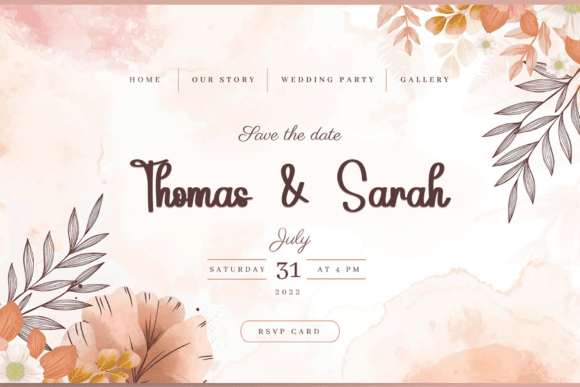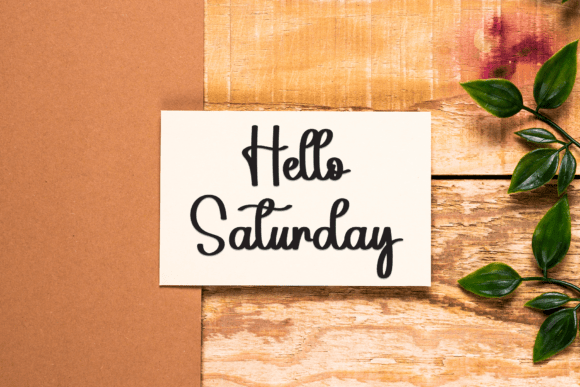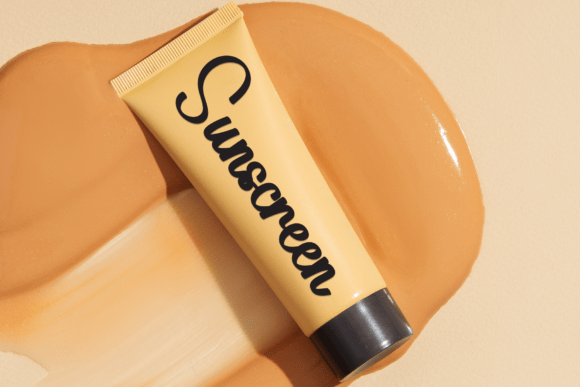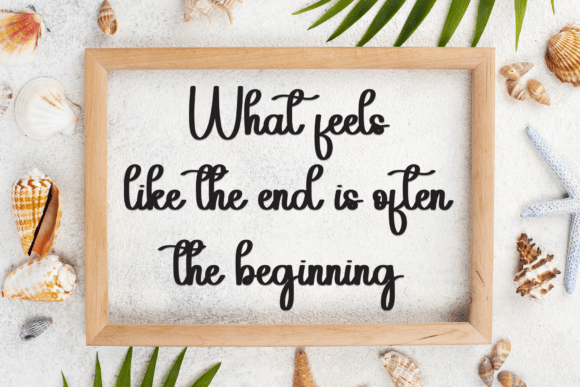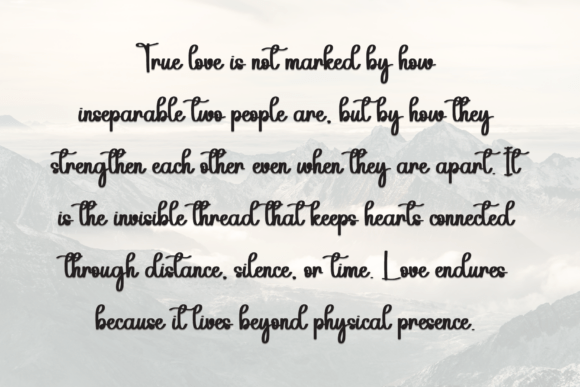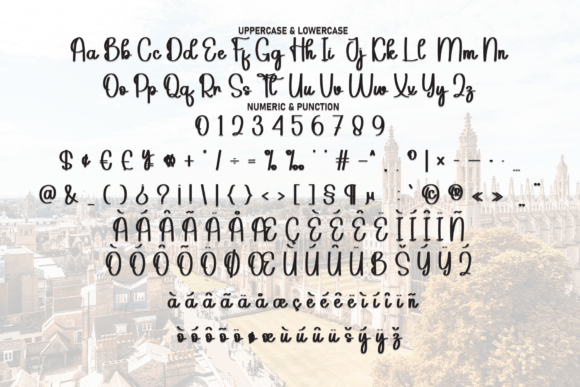
Discover the Timeless Elegance of Cambridge Font
There’s nothing quite like the thrill of watching a design come to life, and for many of us, that moment is when the perfect font is finally selected. It’s the icing on the cake, the cherry on top, or in this case, the flourish on a beautifully crafted invitation. For designers seeking to add a touch of sophistication and whimsy to their creations, we’re excited to introduce the Cambridge Font – a charming hand-scripted typeface that exudes warmth and inviting charm.
With its endearing sweetness and unmatched hospitality, the Cambridge Font is the ideal companion for any creative pursuit. Whether you’re crafting bespoke wedding invitations or designing customized cards, this font is the perfect addition to bring a harmonious highlight to your designs.
Cambridge Font Key Features
- Unique Characteristics: The Cambridge Font features a classic, elegant design with subtle flair and a sense of sophistication, making it ideal for academic, professional, and creative projects.
- Font Style: The font is available in both regular and italic styles, providing versatility and flexibility for different design applications.
Cambridge Font Review
Overall, I’d say the Cambridge Font is a solid choice for those looking for a classic, elegant font. ✨ It’s a great option for academic or professional settings, and its timeless design makes it versatile and suitable for a wide range of applications.
The font’s most notable feature is its high readability, even at smaller font sizes. ✨ This is thanks to its clear, crisp lines and well-spaced letters. It’s also highly legible on both print and digital media, making it a great choice for publications and online content.
- Classic, elegant design
- High readability, even at smaller font sizes
- Well-suited for academic or professional settings
- Timeless design makes it versatile and suitable for a wide range of applications
- May not be as suitable for modern or trendy designs
- Can appear a bit too formal or stuffy in some contexts
- May not be as expressive or creative as other fonts
Overall, I’d give the Cambridge Font a solid 4 out of 5 stars. It’s a reliable, classic choice that’s sure to impress in the right contexts. Just be aware of its limitations and use it accordingly.
Getting the Most Out of Cambridge Font
For optimal results, use the Cambridge font in conjunction with serif-style graphics and images. This will create a classic, timeless look that is perfect for academic, historical, or professional applications.
The Cambridge font is ideal for:
- Academic papers and theses
- Historical documents and presentations
- Professional reports and proposals
- Classic-style book covers and marketing materials
Alternatives to Cambridge Font
Playfair Display is an elegant, luxurious serif font ideal for high-end branding, luxury goods, and sophisticated publications. It features intricate details and classic feel, making it perfect for creating a sense of opulence and refinement.
Comparison to Cambridge Font: While Cambridge Font is a classic serif font, Playfair Display is more ornate and luxurious, making it a better choice for projects that require a touch of sophistication and elegance.
Didot is a classic serif font known for its refined and elegant feel, making it suitable for high-end branding, luxury goods, and sophisticated publications. It features a clean and sophisticated design, ideal for creating a sense of sophistication and refinement.
Comparison to Cambridge Font: Like Cambridge Font, Didot is a classic serif font, but it has a more refined and elegant feel, making it a better choice for projects that require a touch of sophistication and luxury.